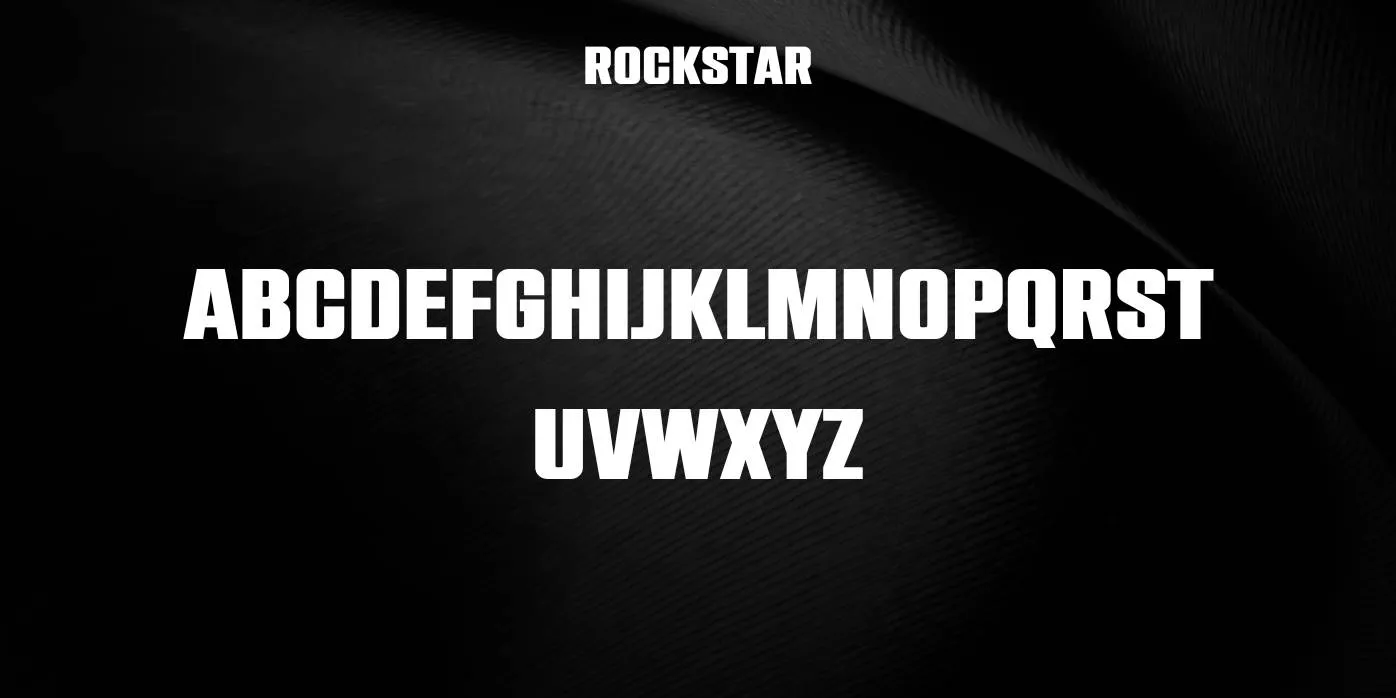
Rockstar Font
Rockstar font is a very unique and neat font. You can use it to design so many different projects. It was designed by Andhi Yuloanto. This font is designed for all types of music projects.
It contains 142 characters, 125 glyphs, and 1000 units per Em. The weight of the font is extra bold and its width is ultra bold. You can make attractive and strong projects by using this font. Unicode supported 2.0 and BMP only.
It belongs to the sans-serif family class. An online generator tool also supports this font to change your simple text into this stylish look without downloading the font. It supports file formats TTF(True Type Font) and OTF(Open Type Font). You can download it on many devices such as Windows, Linux, and Android.
You can also use it for pairing with other fonts like utopia font to give a more attractive look to your projects. It has different weights like Bold, Italic, regular, extra-bold, and extra light. Usage This amazing font can be used to design so many different projects it has many features like characters, symbols, numbers, small letters, capital letters, punctuations, and special characters. It can be used to design music albums, music album covers, book covers, and magazine covers as well.
You can use this font to design attractive images for advertisements. This stunning font is a  suitable choice for both print and digital media. You can make banners, posters, flyers, and attractive brochures by using this font. In newspapers, for making headlines, titles, and logos of Video games, TV shows, Awards shows, and other social media projects you can use this font.
To print on fabrics like caps, and T-shirts you can use this typeface. It is a very neat and attractive font and gives a very attractive look to your projects. You can also use it in graphic applications like Adobe Photoshop, CSS, and Canva to design more projects. For graphic and website design you can also use it.